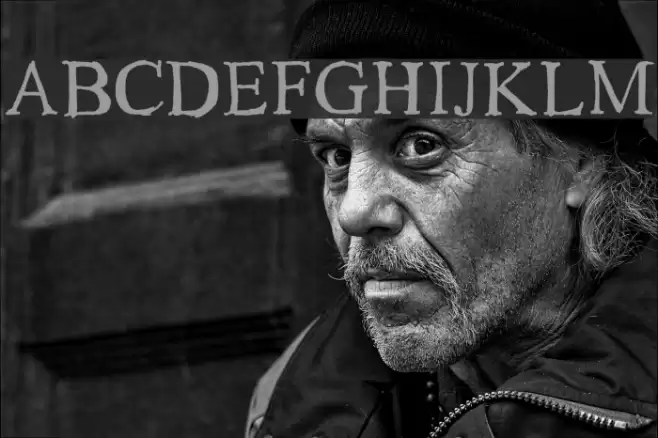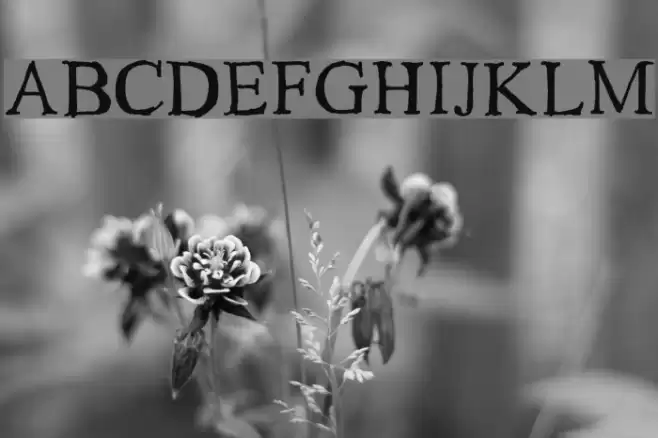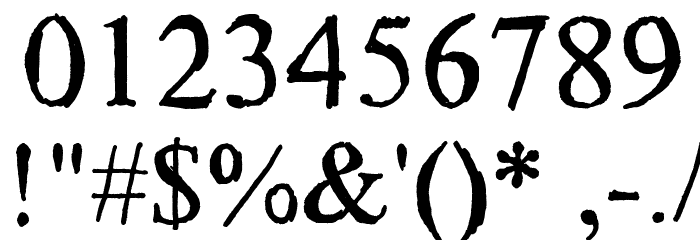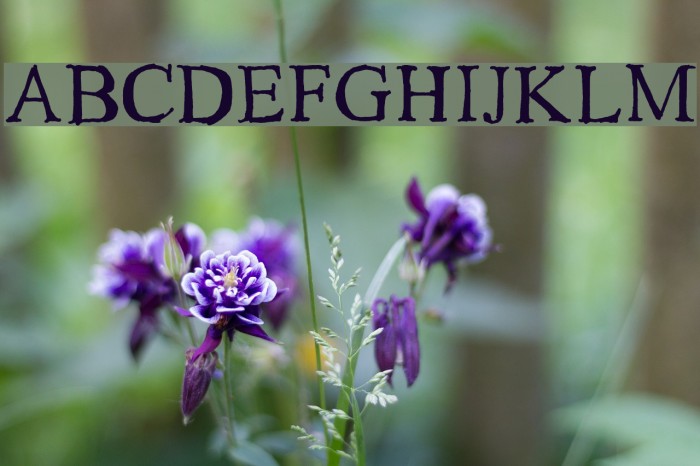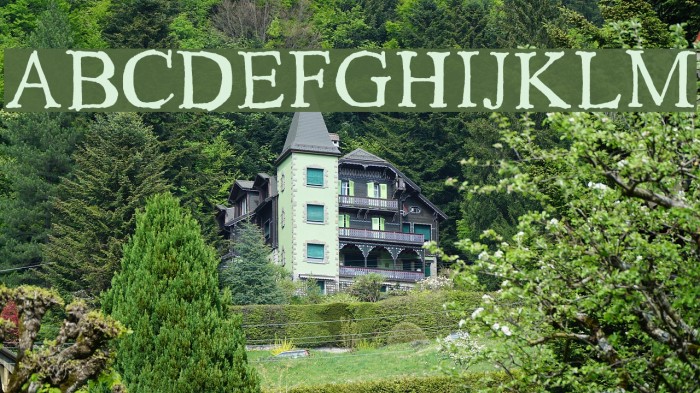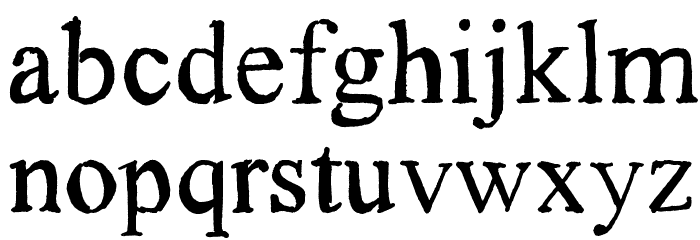
Subway Haze Font
Subway Haze Description
This font exhibits a classic and slightly distressed appearance, reminiscent of vintage typefaces. The characters have a hand-drawn quality, with uneven edges and subtle variations in stroke width, giving it a rustic and organic feel. The uppercase letters are bold and commanding, while the lowercase letters maintain a consistent style with a touch of whimsy. Numerals are clear and legible, matching the overall aesthetic. Special characters are well-integrated, maintaining the font's unique character. This typeface is perfect for projects that require a touch of nostalgia and authenticity.
A vintage, hand-drawn style font with a rustic and organic feel from Distorted Eroded fonts.
- Proposed Projects: Ideal for branding, packaging, posters, and any project needing a vintage or handcrafted touch.
- Overall Style: Vintage